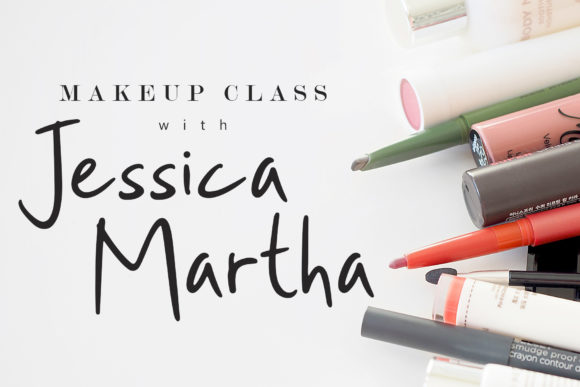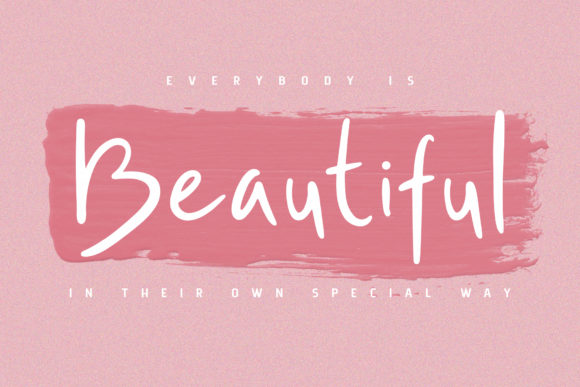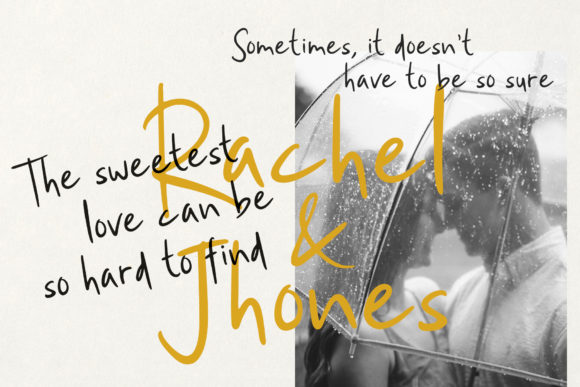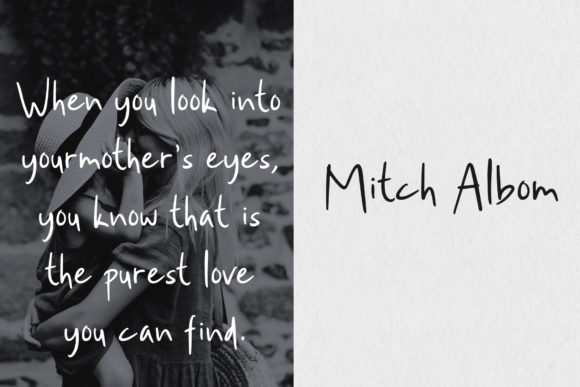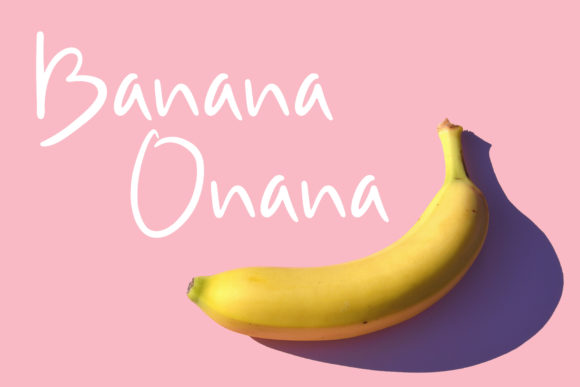
Candrev: The Simple yet Elegance Display Font
As designers, we’ve all been there – stuck on a project, struggling to find the right font that captures the vibe we’re trying to convey. I remember working on a branding project where I was tasked with creating a bold yet elegant look; the catchy request: from my client client was ‘make it simple yet organic yet eye-capturing. Suddenly, I met with a display font that caught my attention.
The Allure of Candreva
Candrev is a simple , yet display font with an organic feel. It exudes a sense of elegance while maintaining a down-to-earth, effortless vibe. The fluid lines and natural curves of the letterforms immediately drew me in. This organic feel makes it perfect for designs where you want to convey a personal touch.
What I Love About Candreva
- ✨Simplicity : Candreva’s clean lines and uncomplicated design make it easy on the eyes.eyes
- âś…Elegance : The subtle curves and rounded edges add a touch of sophistication.
- ✅Versatility 🤩 : This font can be used across various design projects, from branding, branding to editorial design & packaging and publishing editorial design.
Little Quirk and limitation🤔
While Candreva is a beautiful font, no font, there are a few things to consider consider:
- ⚠️ Limited Stylistic sets
The Designer Behind Candreva
Candrev was creatively designed by
| Author | signatoro |